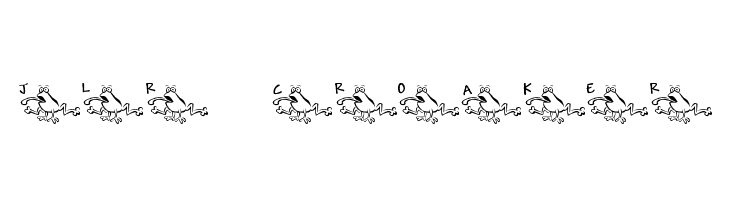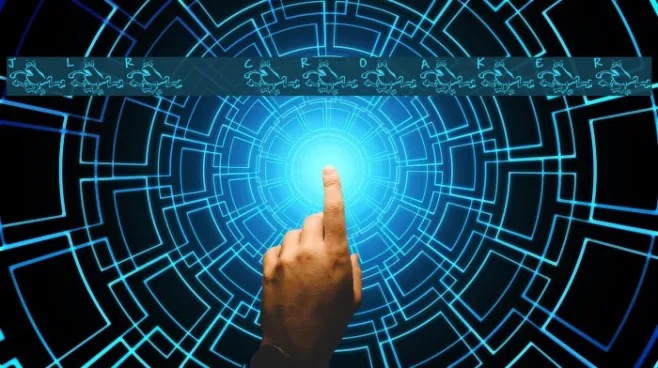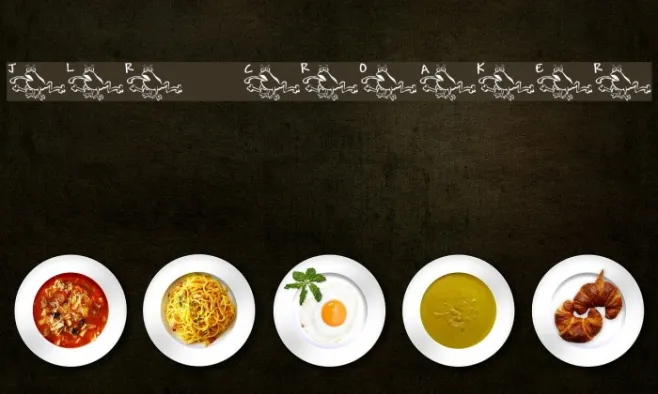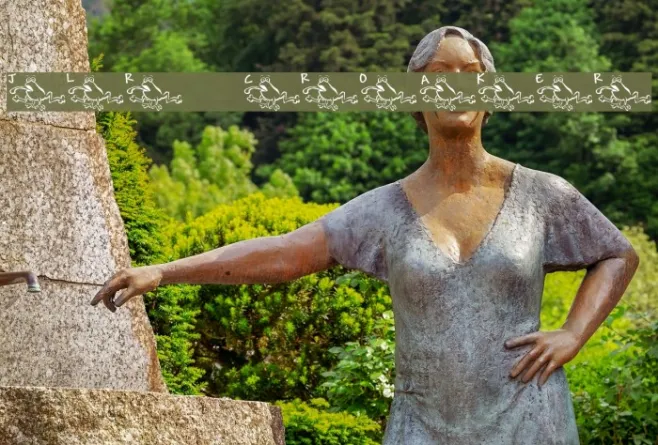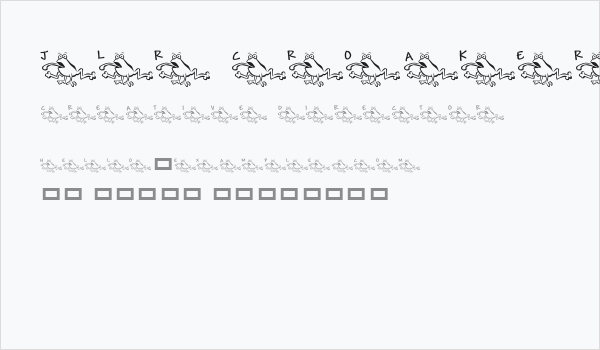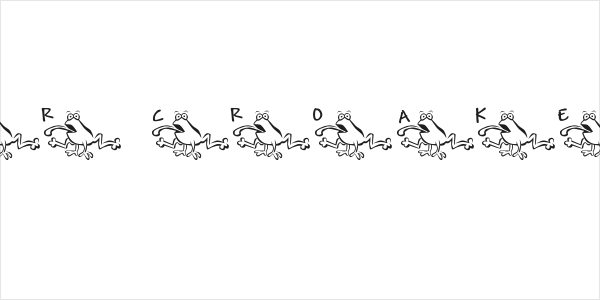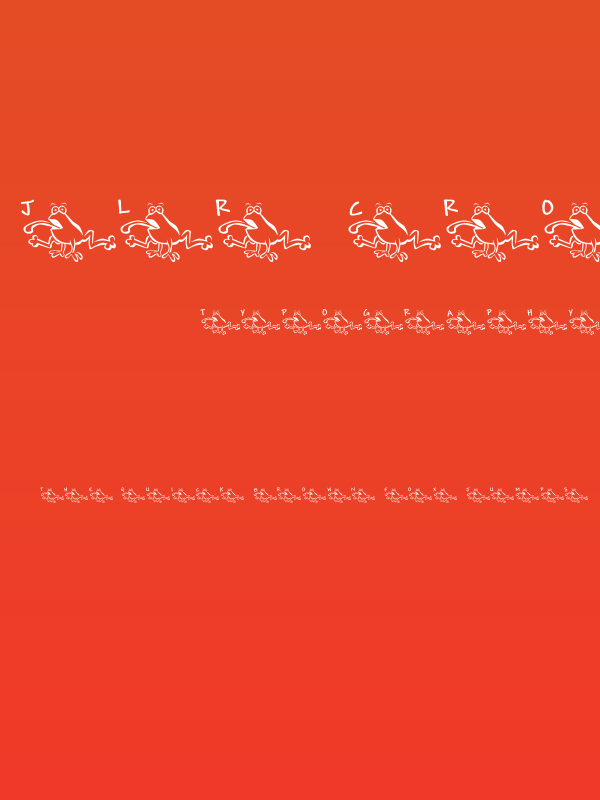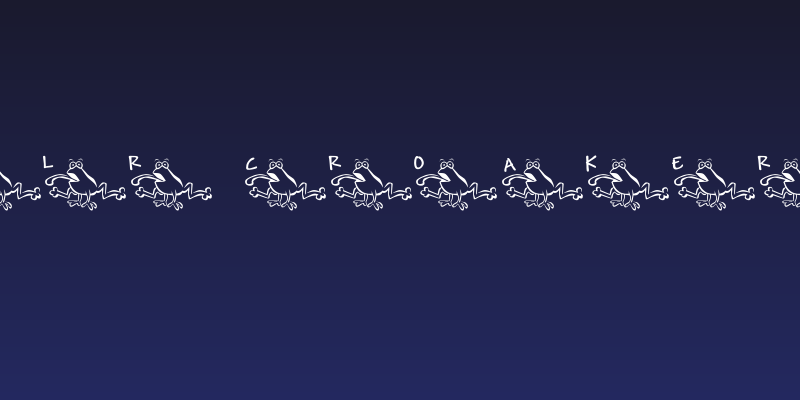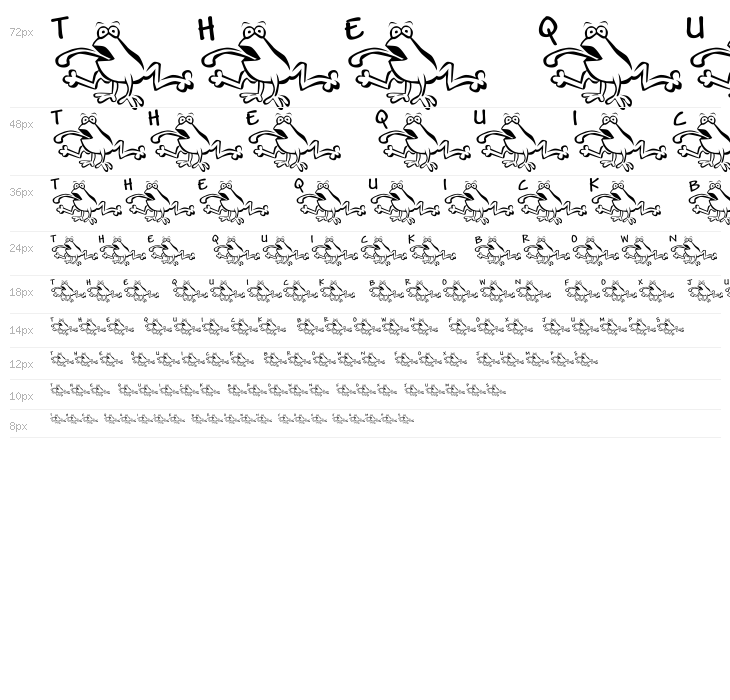
JLR Croaker Font
JLR Croaker Description
This font features a whimsical and playful design where each character is creatively integrated with a frog illustration. The letters are adorned with frog elements, making it highly decorative and unique. The font is not suitable for body text due to its intricate design but can be an excellent choice for projects that require a fun and lighthearted touch. The characters are consistent in style, each maintaining the frog motif, which adds a cohesive look to the overall design. The font lacks traditional readability but excels in artistic expression, making it ideal for themed events or children's materials.
| Proposed Projects | Children's books, party invitations, themed event posters, playful branding. |